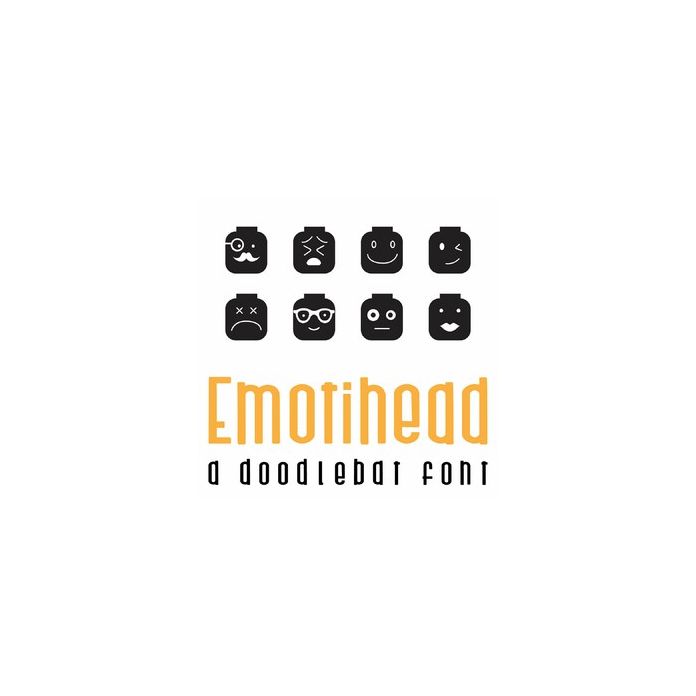
Emotihead Doodlebat Font
This fun doodlebat font features 26 fun emoji heads. Perfect for cards, gifts, decor, crafts, scrap book pages, planner stickers and more!